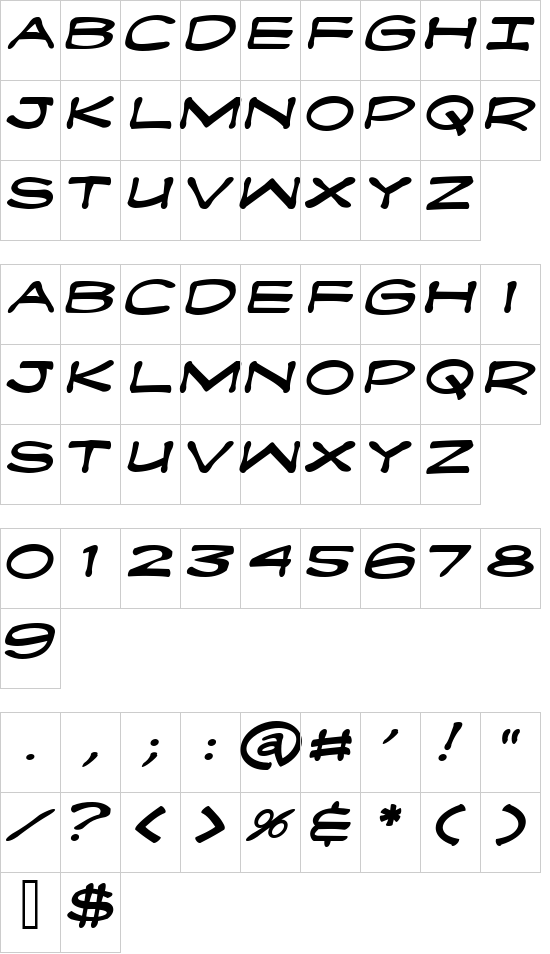
Fanboy Hardcore
About Fanboy Hardcore
Fanboy Hardcore is a bold cartoon font with thick, playful letterforms full of comic-book energy. The characters are heavy and rounded with a loud, animated bounce, recalling the punchy lettering of superhero panels and Saturday-morning logos. It is built to feel fun and slightly over the top.
That energy fits superhero graphics, gaming logos, kids' party invitations, and lively T-shirt and sticker designs. It works best in short, shouty words. Fanboy Hardcore is free to download as a TrueType file, and you can preview it with your own text to see how the chunky cartoon letters land in your layout.